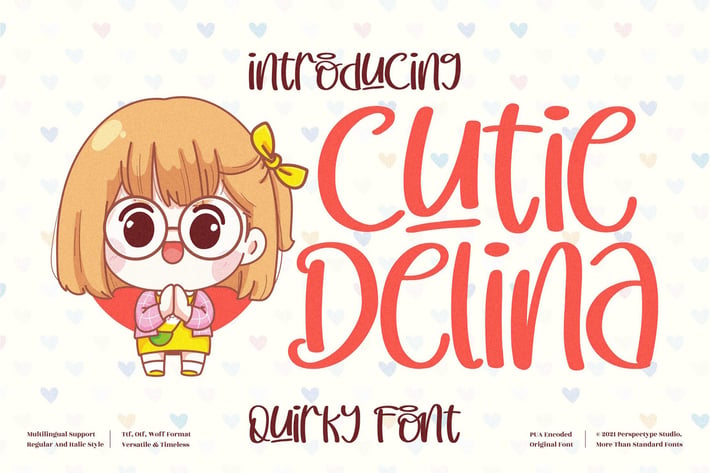
Cutie Delina Quirky Font
Cutie Delina is a cheerful, quirky display script built with chunky curves, bouncy baselines, and a friendly hand-lettered rhythm. Its rounded forms and lively strokes make text feel playful and approachable—perfect for kid-centric branding, cute quote posts, birthday invitations, and anything that needs a sprinkle of charm. Clean outlines keep it easy to read at small sizes, while the bold shapes pop beautifully in headlines and logos.
+ Playful, hand-drawn letterforms with a bouncy baseline
+ Smooth curves for crisp results in print and on screen
+ Complete basic Latin set with punctuation & symbols
+ Works great for logos, headers, packaging, and social posts
+ Kids branding & products
+ YouTube thumbnails & social media quotes
+ Birthday invitations & party kits
+ Classroom posters & worksheets
+ Cute logos, stickers & packaging
+ Greeting cards & scrapbooking
Make your message adorably loud with Cutie Delina’s bubbly charm!